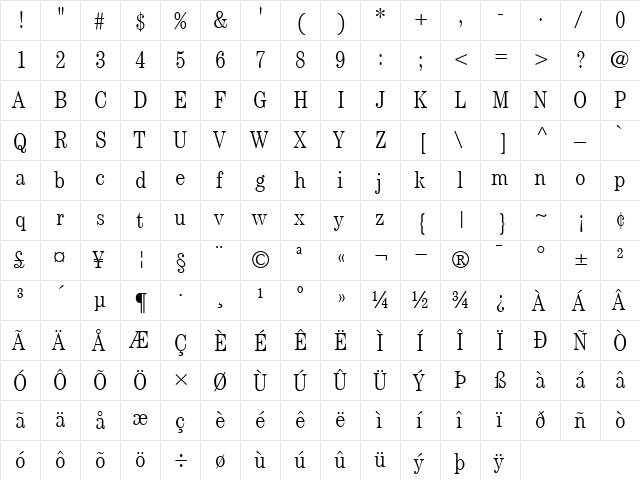
ITCCentury-CondensedLight Light Font Preview
ITCCentury-CondensedLight Light
Design Context for ITCCentury-CondensedLight Typeface
ITCCentury-CondensedLight offers clean, dependable letterforms without strong stylistic allegiance, making it a practical choice for designers who need flexibility. The delicate stroke weight brings airiness and refinement to layouts. Its narrow stance lets it pack a punch even in space-constrained designs.